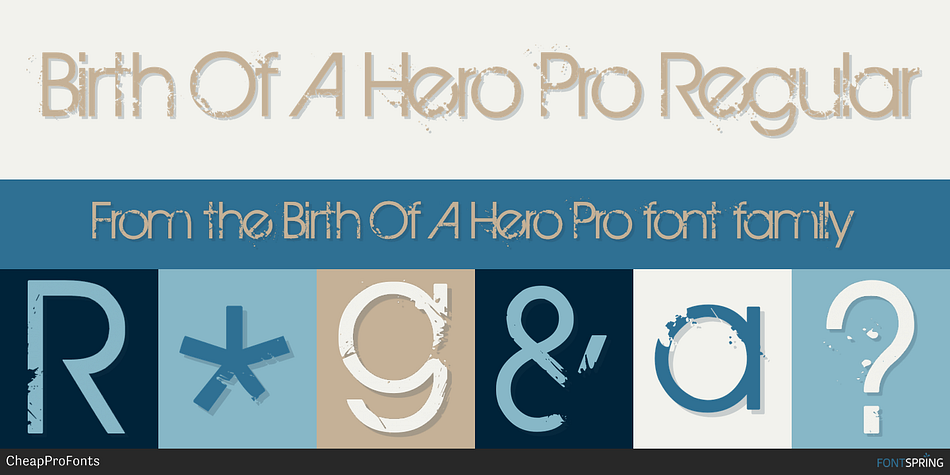
Birth Of A Hero Pro Regular
Birth Of A Hero Pro is a grunge font published by CheapProFonts.
A grunged-up variant of a classic font – with ultra-tight spacing (uppercase letters are mostly overlapping).
A grunged-up variant of a classic font – with ultra-tight spacing (uppercase letters are mostly overlapping). Perfect for that worn but stylish look, now with hugely extended language support.